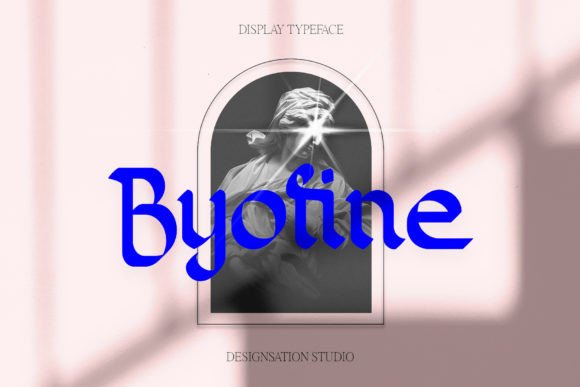
The Designer’s Delight: Exploring the Wavy World of Byofine Font
I still remember the time I was working on a branding project for a trendy boutique, and I just couldn’t find the perfect font to capture their carefree, bohemian vibe. That was until I stumbled upon Byofine Font – a cool and wavy looking display font that instantly elevated my design game. In this article, I’ll share my experience with Byofine, its features, and how to make the most of it in various design platforms.
An Honest Review of Byofine Font
What I Love About Byofine ✨
- 💥 Unique and eye-catching wavy design that’s perfect for making a statement
- 🎨 Highly versatile and suitable for a wide range of projects, from cards to branding and labels
- 📚 Extensive character set, including stylistic alternates and ligatures
- ⚠️ May not be suitable for body text due to its display font nature
- ⚠️ Some users may find the wavy design too ornate or attention-seeking
The Designer Inspiration Behind Byofine
Byofine Font was designed with the intention of capturing the carefree spirit of bohemian culture. Its wavy, flowing design is reminiscent of hand-drawn signs and posters from the 1960s and 1970s. The font’s creator aimed to craft a unique and eye-catching display font that would add a touch of personality to any design project.
Q: Is Byofine Font suitable for body text?
While Byofine Font is a beautiful and eye-catching display font, it may not be the best choice for body text due to its ornate and wavy design. It’s better suited for headlines, titles, and short paragraphs.